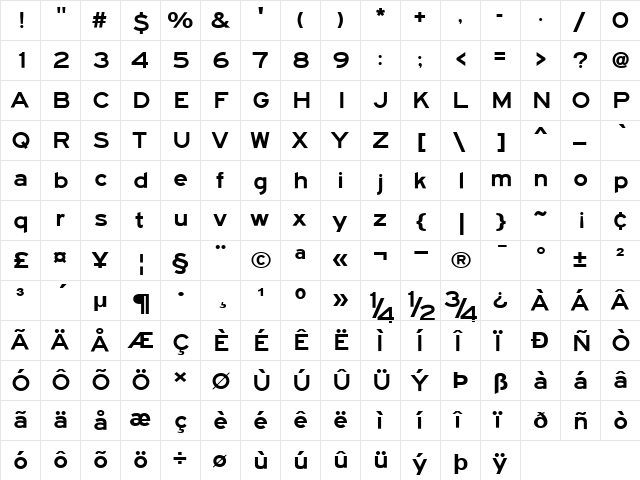
Roadgeek 2005 Series F Regular
| Foundry | Michael D. Adams |
| Designer | Michael D. Adams |
Design Context for Roadgeek 2005 Series F Typeface
Roadgeek 2005 Series F takes a measured approach to typography — its balanced proportions and neutral character make it a reliable workhorse for both digital and print work.